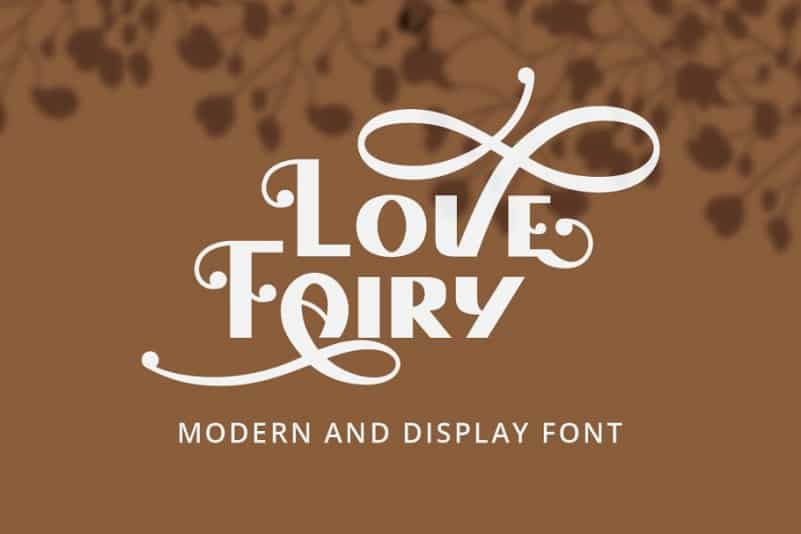
Love Fairy Display Font
Love Fairy Display Font is a playful yet elegant sans serif. It teases your eyes with its curves yet still able to maintain its classy composure. Made from font designer named PutraCetol Studio. This font is a modern display font. Love Fairy is perfectly suited to signature, wedding, social media, stationery, logo, typography quotes, magazine or book cover, website header, clothing, branding, packaging design and more.